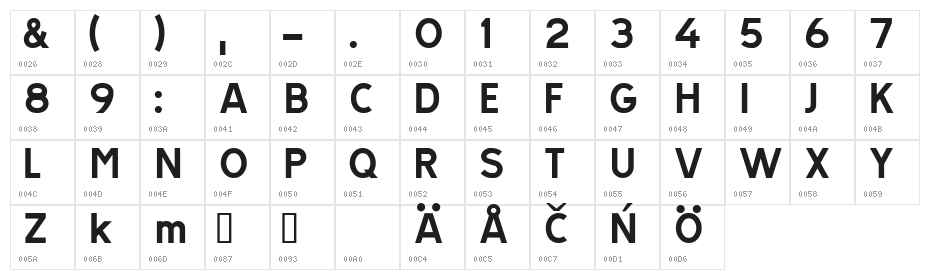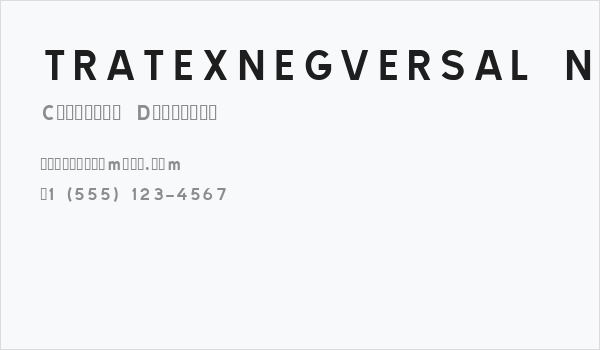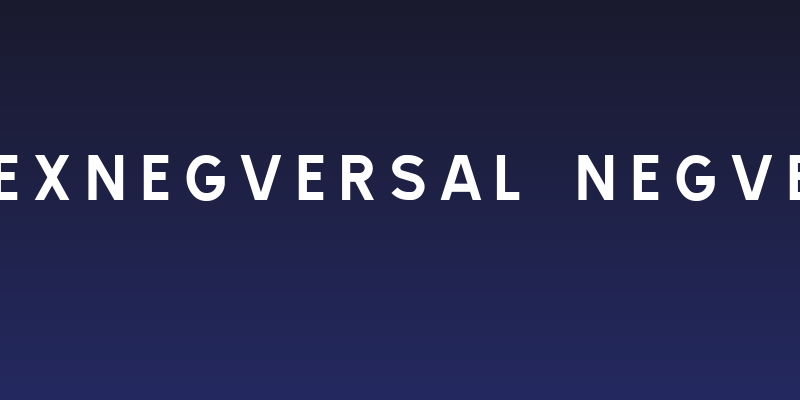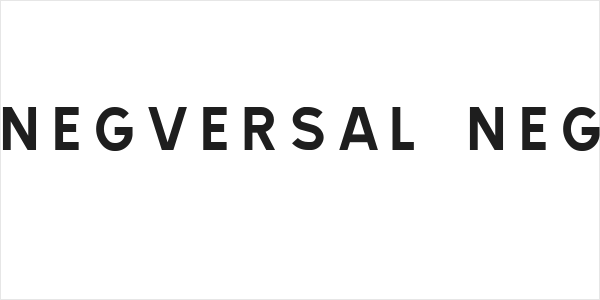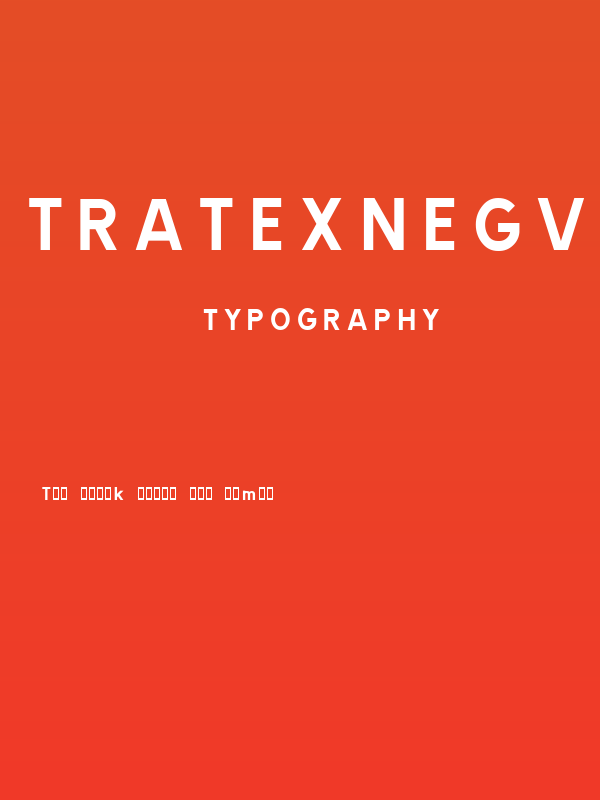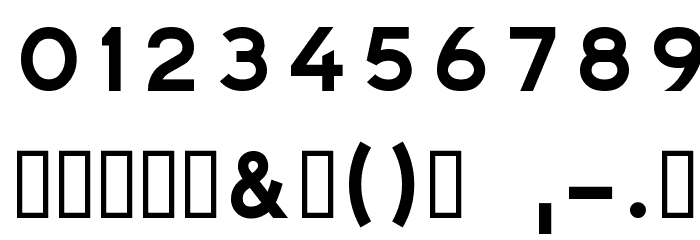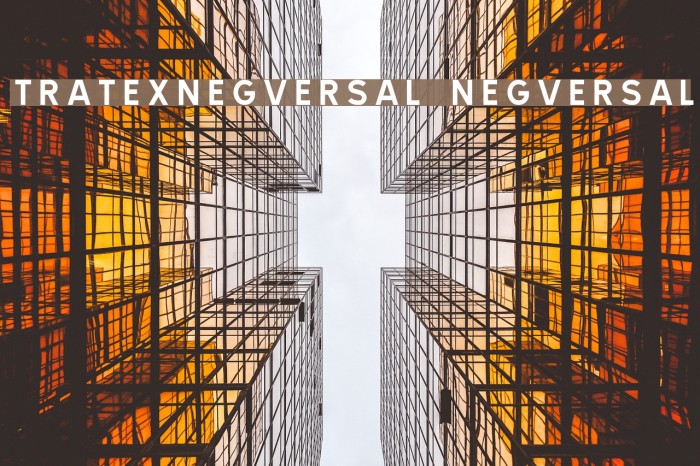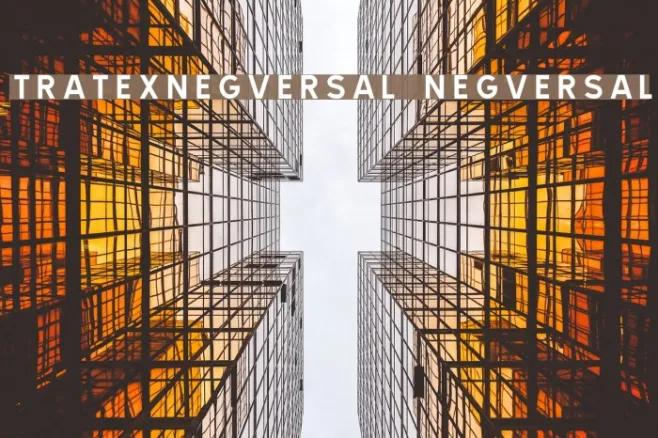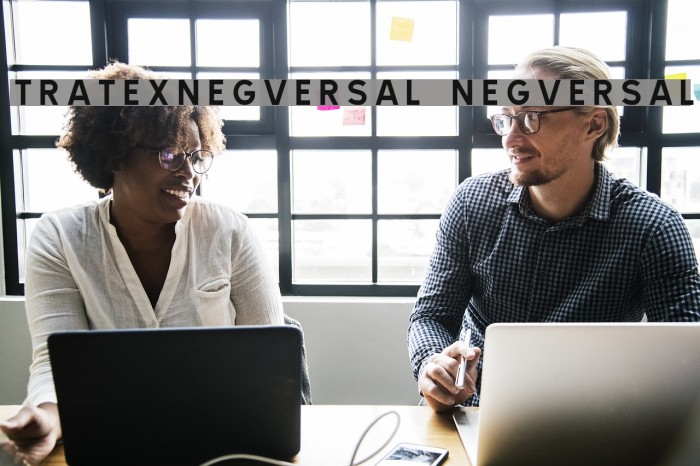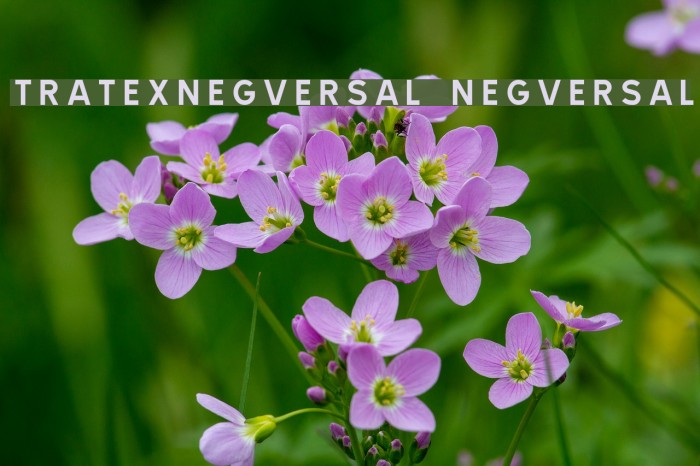
TRATEXNEGVERSAL Font
TRATEXNEGVERSAL Description
This font features a clean and modern sans-serif design with a strong geometric influence. The uppercase letters are bold and well-defined, offering a sense of stability and clarity. The lowercase letters maintain a consistent style, with rounded edges that add a touch of softness to the overall appearance. The numerals are straightforward and easy to read, making them suitable for various applications. The special characters are designed to complement the overall style, ensuring a cohesive look across all text elements. The font's simplicity and versatility make it an excellent choice for a wide range of design projects.